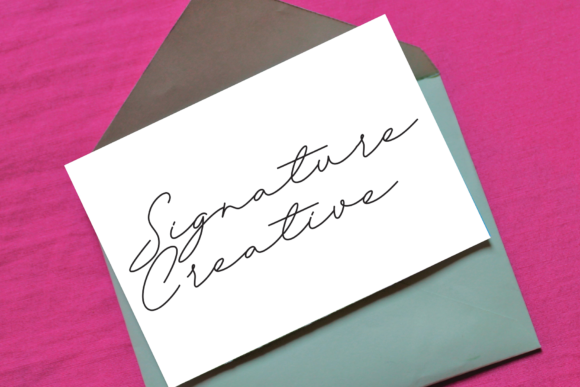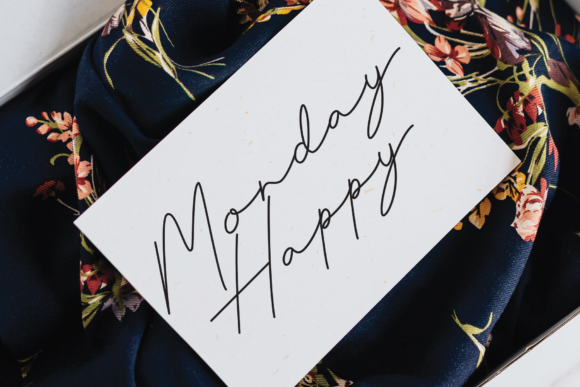
Awesome Wedding Font
db-ku.com - Script & Handwritten -- Awesome Wedding is a stylish and delicate script font. It has a clean, thin and smooth vibe and it will be a hit for any design that you want to add it to.